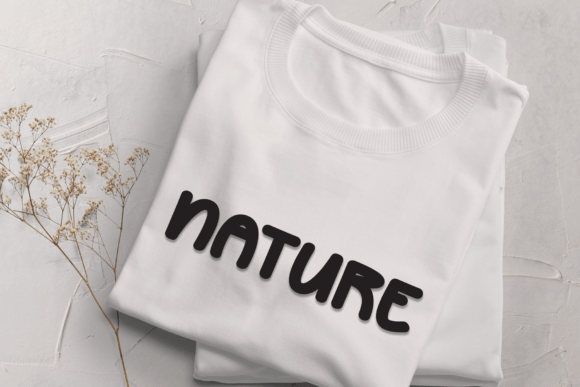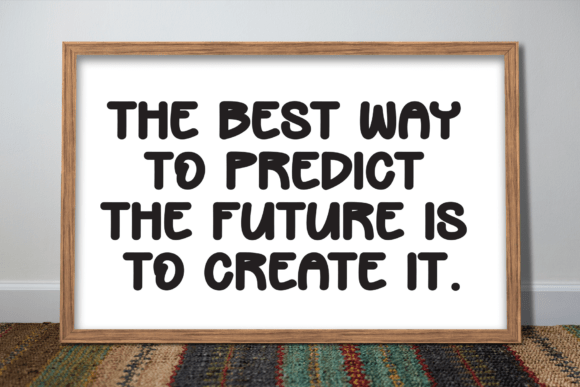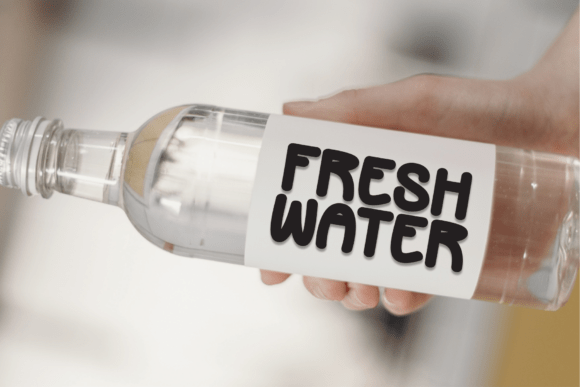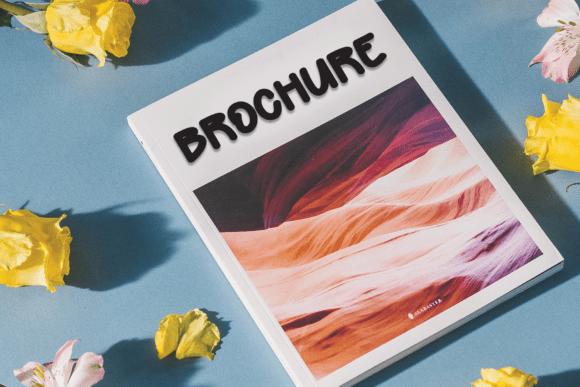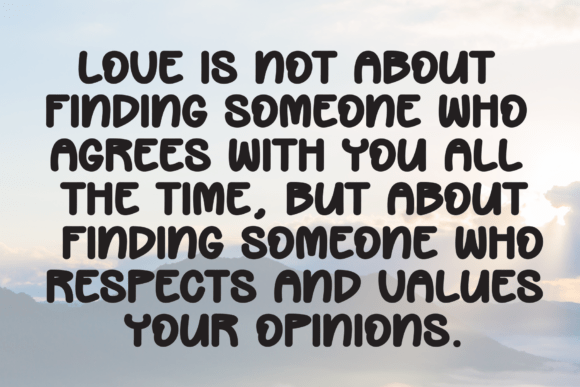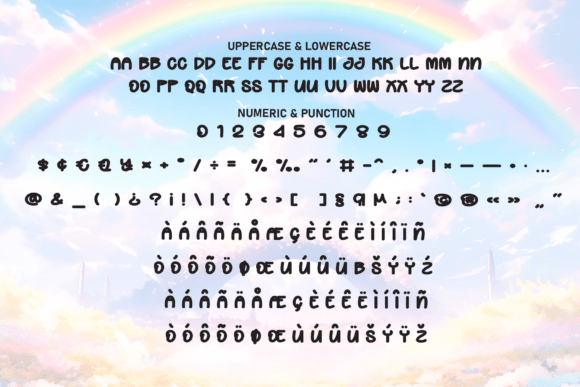
The Cute Rainbow Font: A Fresh and Friendly Addition to Your Design Toolkit
Have you ever been in the middle of a design project, and suddenly, you’re stuck on finding the perfect font? I recall a recent experience where I was working on a colorful craft project for a client, and I just couldn’t find a font that matched the playful vibe I was going for. That’s when I stumbled upon the Cute Rainbow font, and it instantly became my go-to choice. In this article, we’ll dive into the world of Cute Rainbow, exploring its features, uses, and some helpful tips and tricks.
A First Impression: What Makes Cute Rainbow Special
Cute Rainbow is a casual and neat display font that exudes a fresh, friendly vibe. With clean lines and a relaxed structure, it’s perfect for packaging, posters, and social media graphics. The approachable design adds charm and clarity to projects while maintaining a polished appearance.
So, what do I love about Cute Rainbow? Here are a few highlights:
- ✨ Fresh and Friendly Vibe: Cute Rainbow has a unique ability to make your designs feel approachable and welcoming.
- ✅ Clean Lines and Relaxed Structure: The font’s clean lines and relaxed structure make it perfect for a variety of design projects.
- 🎉 Perfect for Crafting and DIY Projects: Cute Rainbow is a great choice for crafters and DIY enthusiasts looking to add a personal touch to their projects.
Now, let’s talk about some small quirks or limitations:
- 🤔 Limited Use in Formal Designs: While Cute Rainbow is perfect for casual designs, it might not be the best choice for formal or professional projects.
- ⚠️ Some Limitations in OpenType Features: While Cute Rainbow supports OpenType features, it may not have as many advanced features as some other fonts.
Cute Rainbow was designed with the intention of creating a font that’s both fun and functional. The designer aimed to craft a font that’s perfect for everyday design projects, from social media graphics to packaging and posters. With its clean lines and relaxed structure, Cute Rainbow is sure to become a favorite among designers and crafters alike.
| Font Name | Cute Rainbow Font |
| What is Cute Rainbow font? | Cute Rainbow is a casual and neat display font designed for everyday design projects. |
| Does Cute Rainbow support OpenType features? | Yes, Cute Rainbow supports OpenType features, including glyphs and stylistic alternates. |